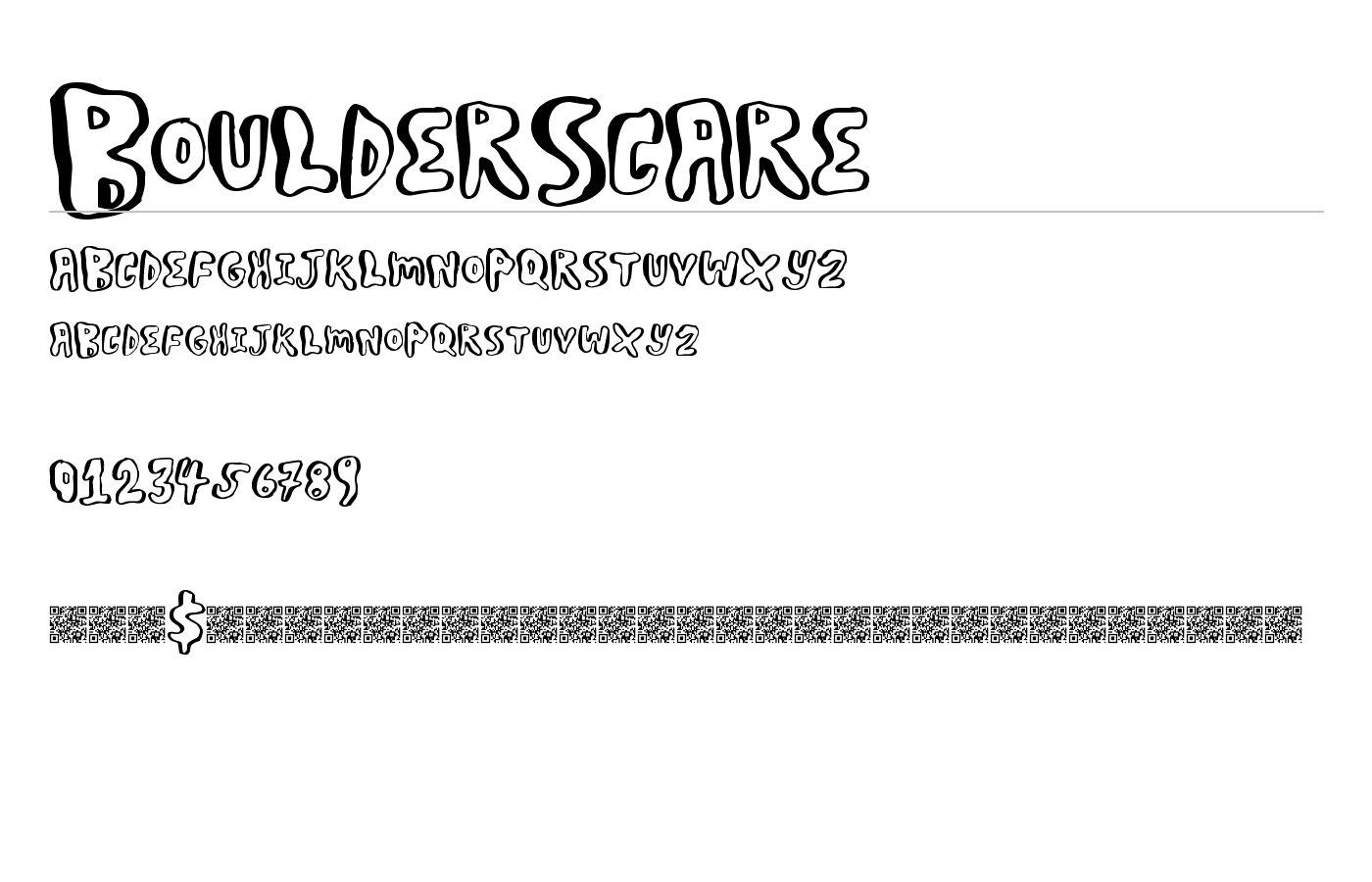
BoulderScare is a playful, hand-drawn display font with bold, uneven strokes and quirky letterforms that evoke a fun and slightly spooky vibe. Its irregular shapes and thick-to-thin contrasts make it perfect for creative headlines, Halloween themes, posters, and branding that aims to stand out with a whimsical, informal personality. This font works best where a casual, eye-catching style is needed to grab attention and convey a sense of lively character.
BoulderScare Font
About BoulderScare Font